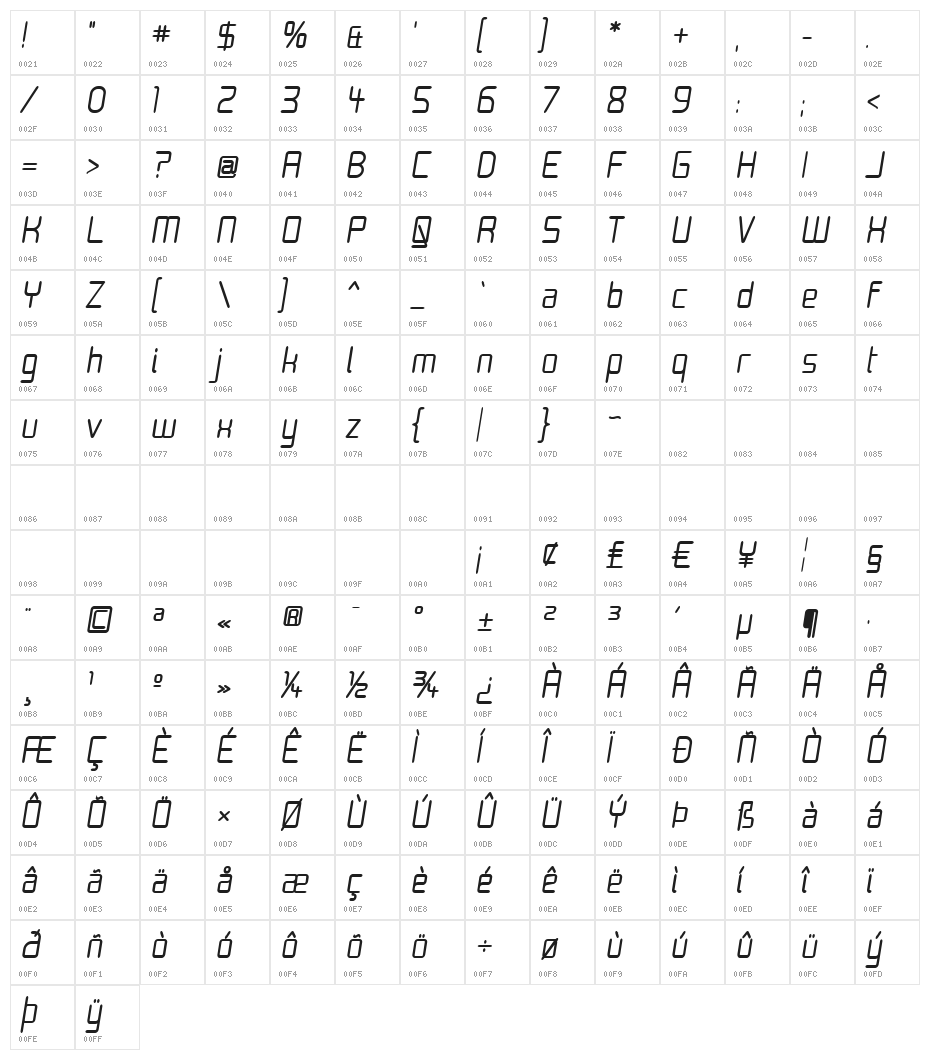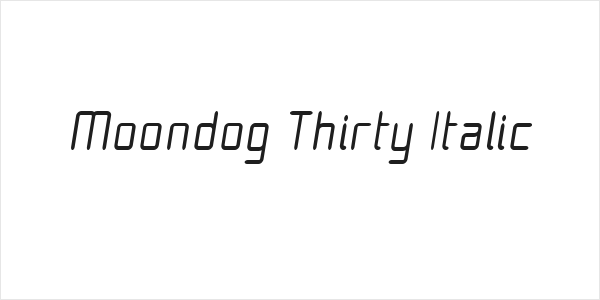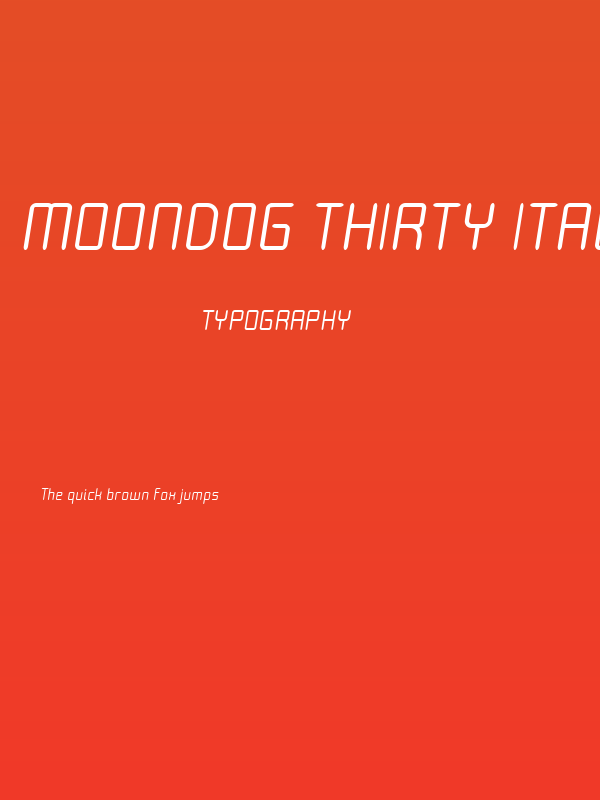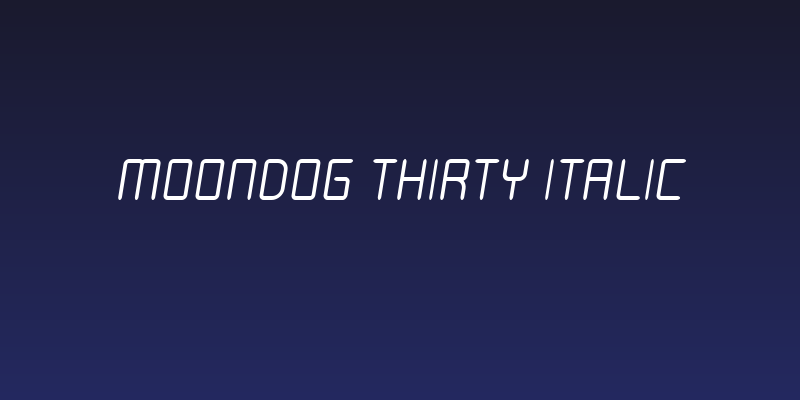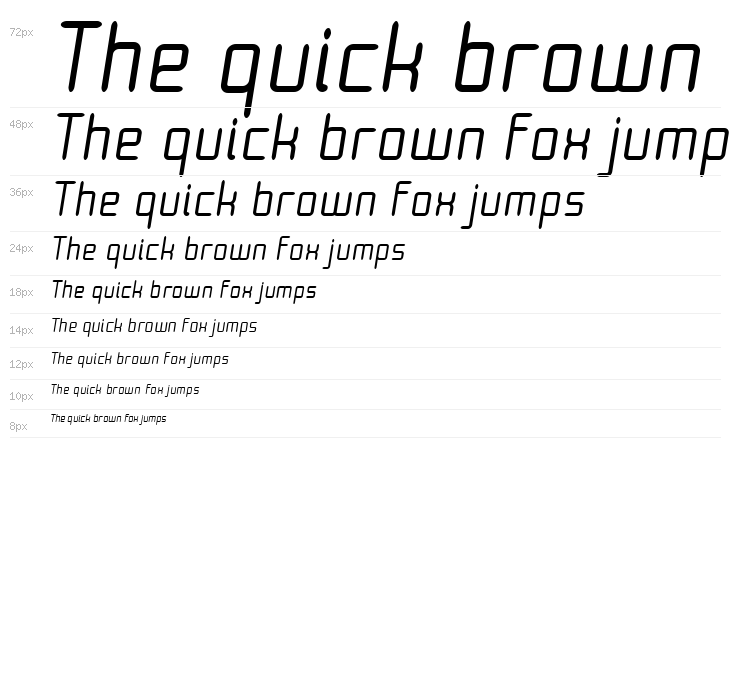
Moondog Thirty Italic Font
Moondog Thirty Italic Description
This font features a sleek, modern design with a slightly italicized style, giving it a dynamic and forward-leaning appearance. The characters are rounded with a uniform stroke width, creating a clean and streamlined look. The uppercase and lowercase letters maintain a consistent height, contributing to a harmonious and balanced aesthetic. The numerals are distinct and easily readable, while the special characters are well-integrated into the overall design. This font's smooth curves and contemporary feel make it suitable for a variety of digital and print applications.
Use CaseHeadlines, Logos, Digital Interfaces
Proposed ProjectsIdeal for tech branding, modern websites, app interfaces, and digital advertising.